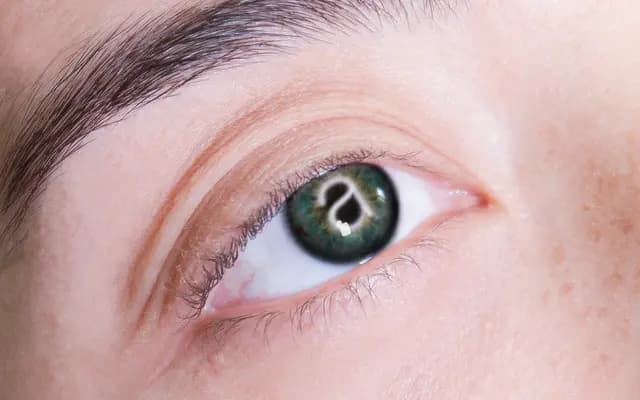
Image Future
A geometric sans from Production Type spanning ten weights from Hairline to Black, styled around digital and screen-culture aesthetics.
Twenty styles cover the full weight range from Hairline to Black with matching italics, giving considerable typographic range for both text and display use. The specimen leans into digital glitch and broadcast imagery — timecodes, ghost signals, playback errors — framing the typeface firmly in tech-adjacent editorial and branding contexts. Clean geometric construction keeps it usable beyond pure mood work, though the aesthetic positioning is its clearest selling point.
The specimen copy and naming conventions evoke digital, screen-based and sci-fi aesthetics, but the letterforms follow a clean geometric sans construction across a wide range of weights. No explicit historical classification is given on the page.